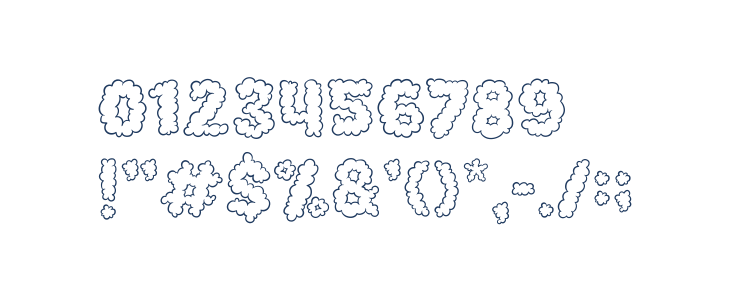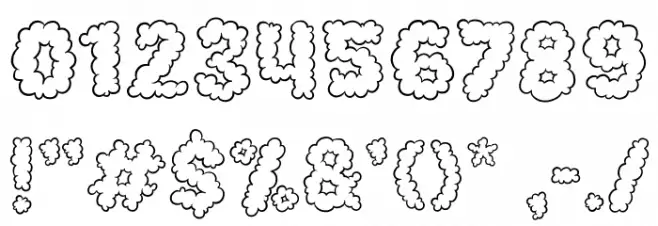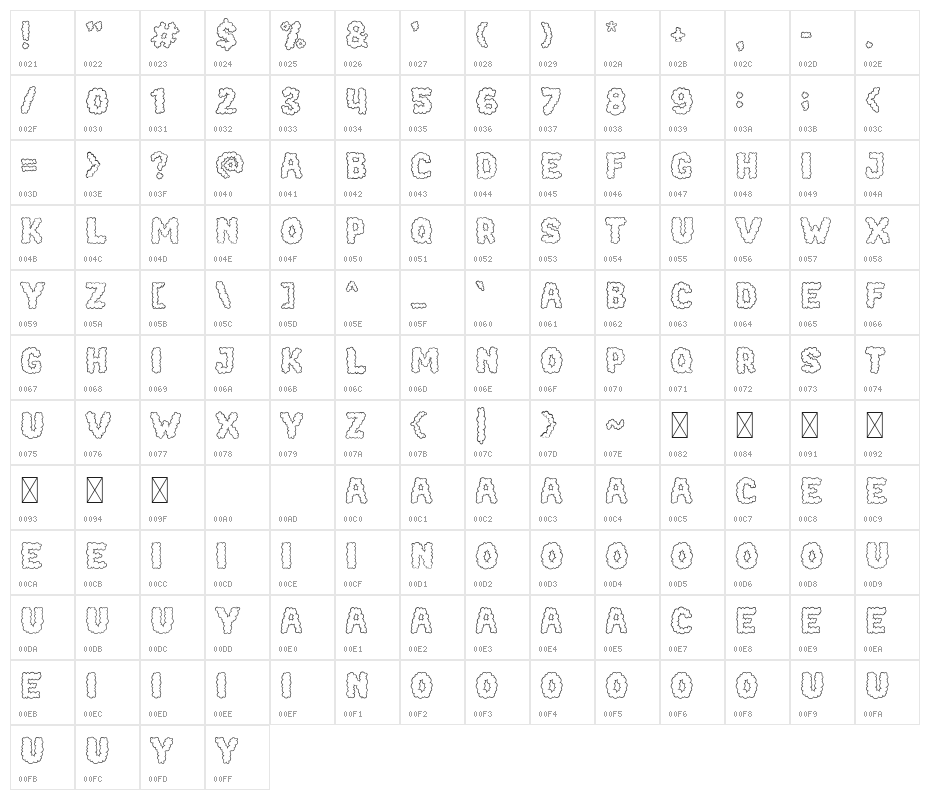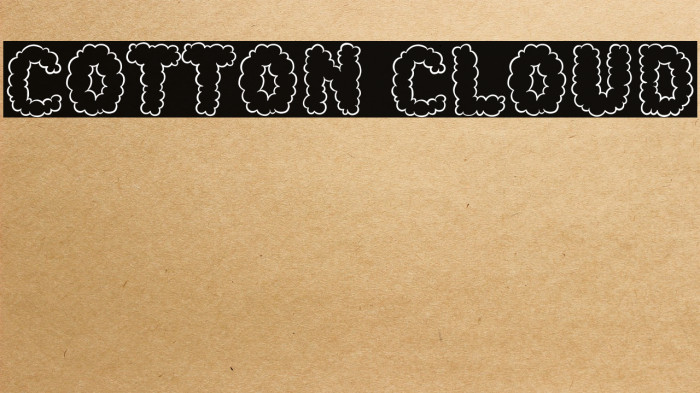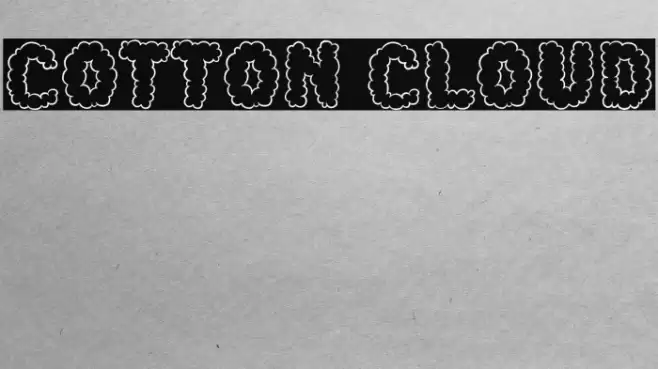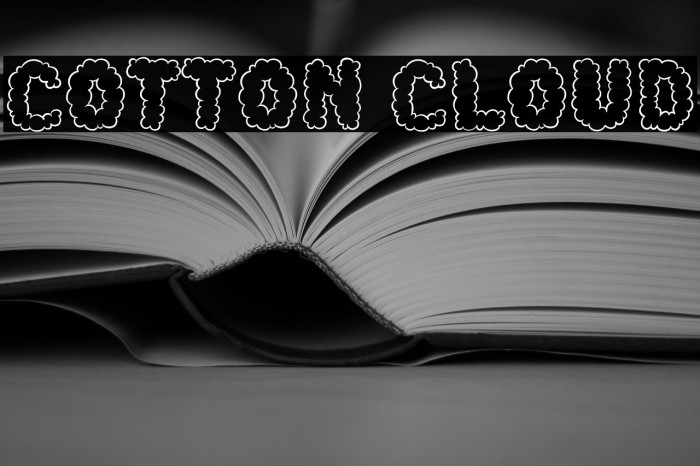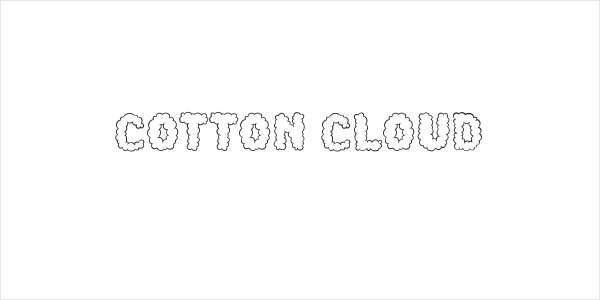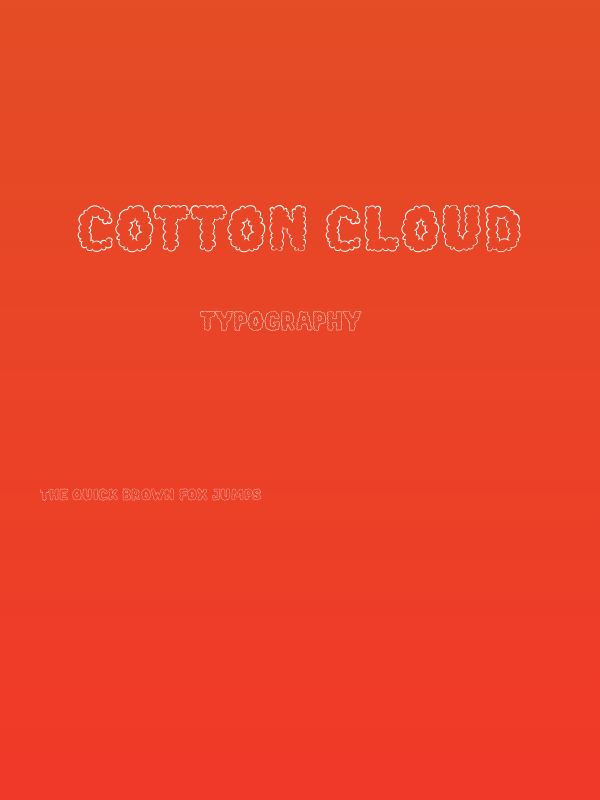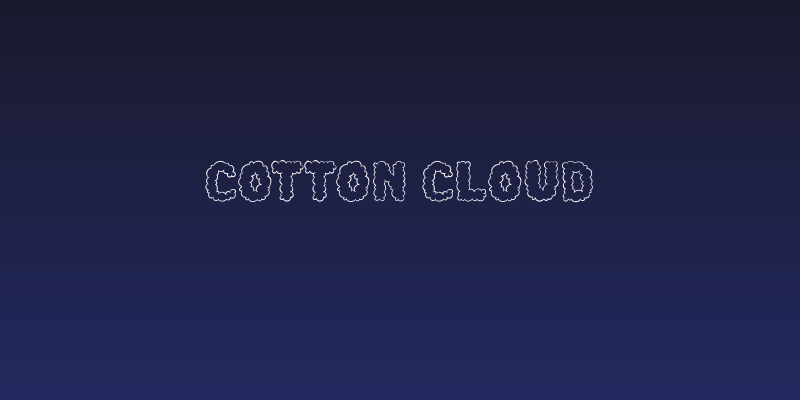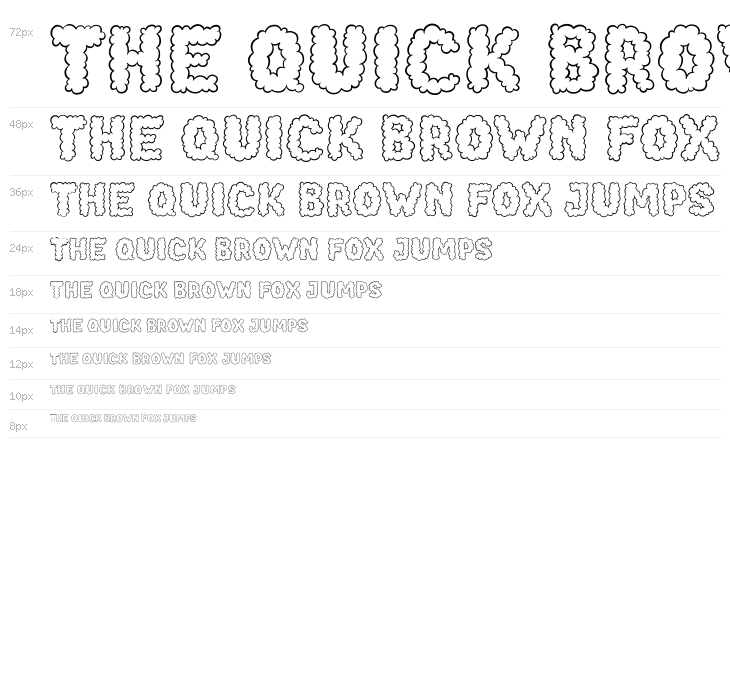
Cotton Cloud Font
Cotton Cloud Description
This playful and whimsical font features characters that resemble fluffy clouds, giving it a light and airy appearance. Each letter and number is outlined with a cloud-like texture, creating a sense of softness and fun. The font maintains a consistent style across uppercase and lowercase letters, as well as numbers and special characters. Its unique design makes it stand out, perfect for projects that require a touch of creativity and imagination. The characters are evenly spaced, ensuring readability while maintaining the decorative cloud effect.
| Overall Style | Whimsical |
| Proposed Projects | Ideal for children's books, playful branding, party invitations, and whimsical posters. |